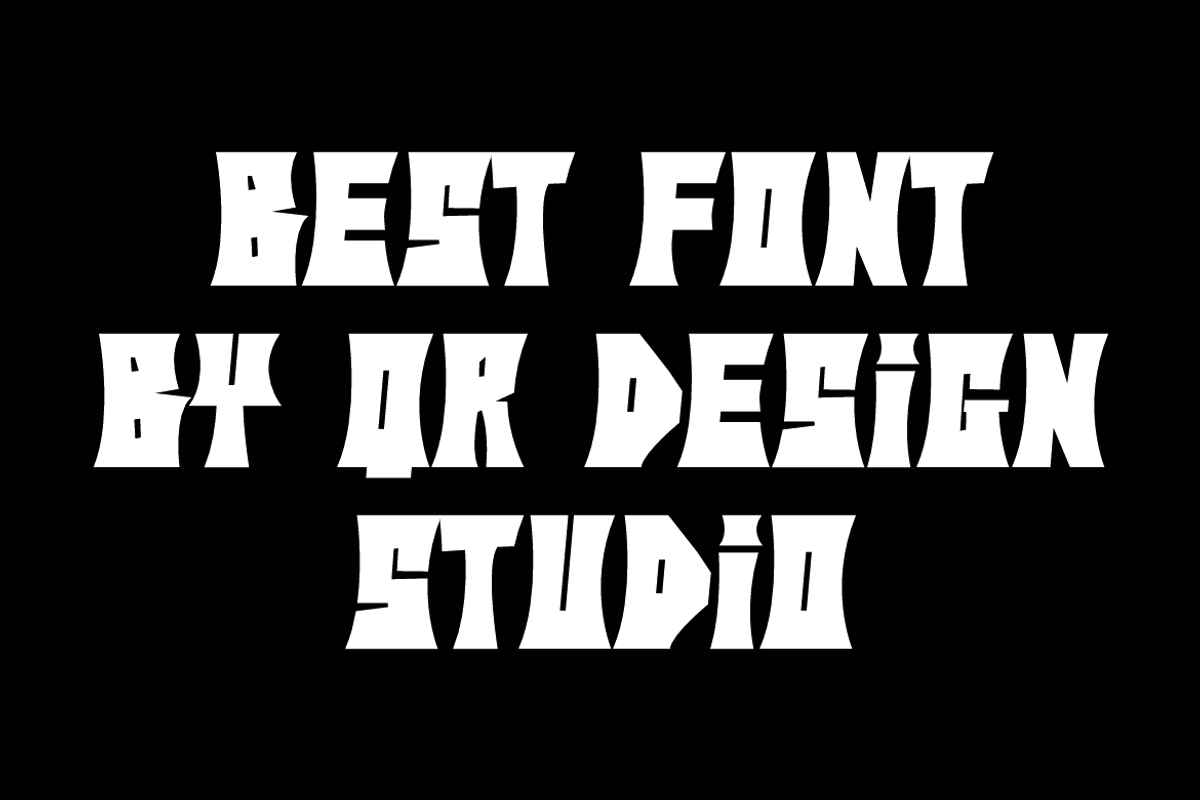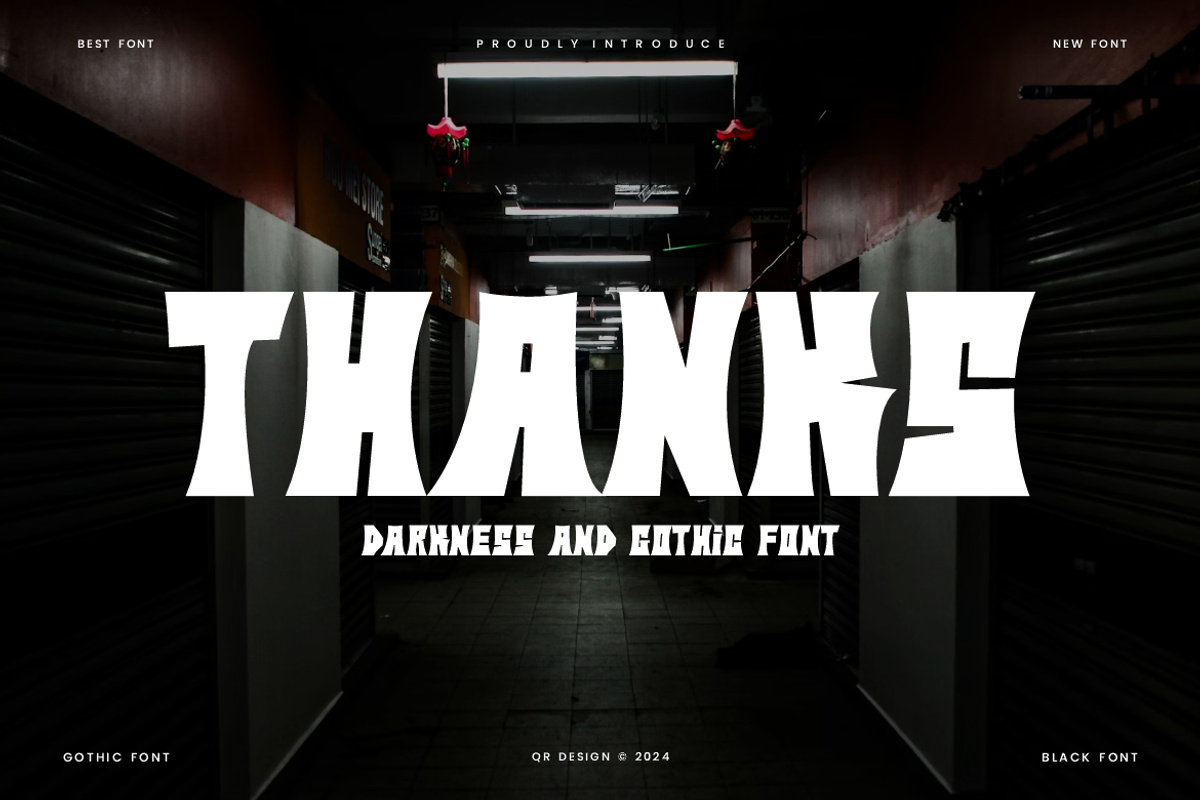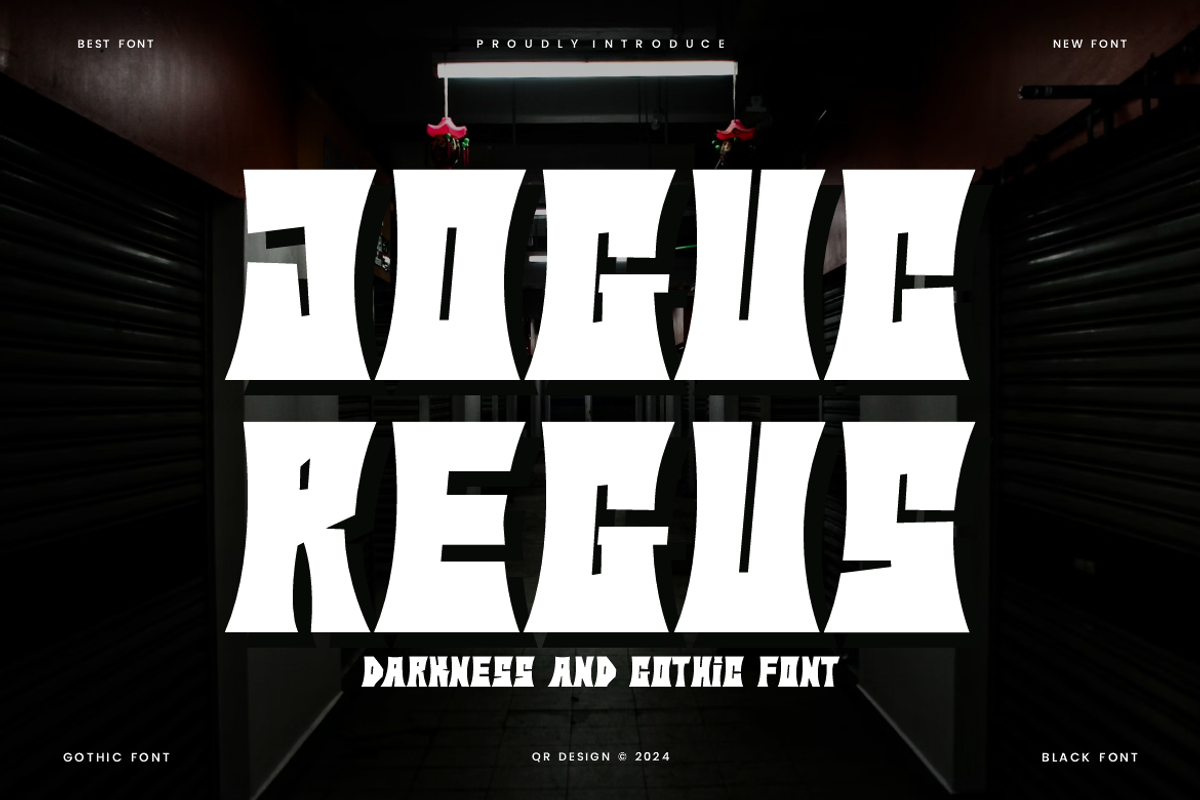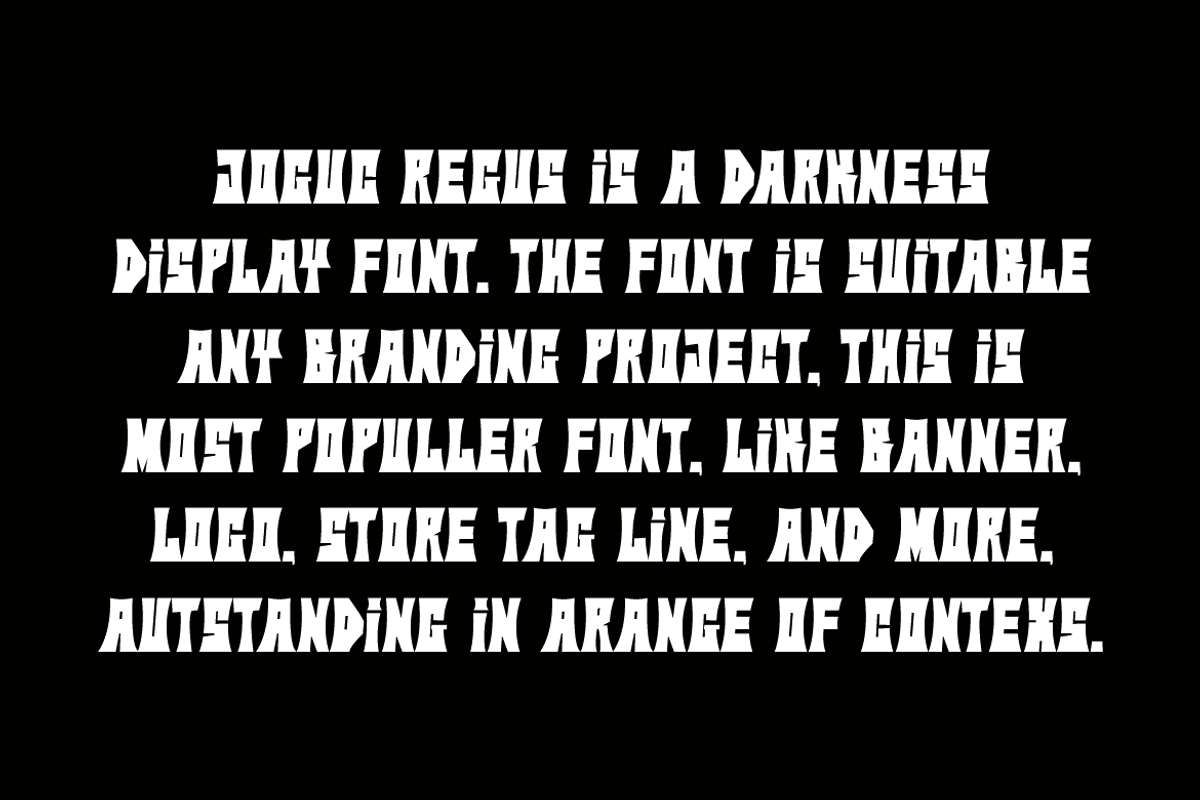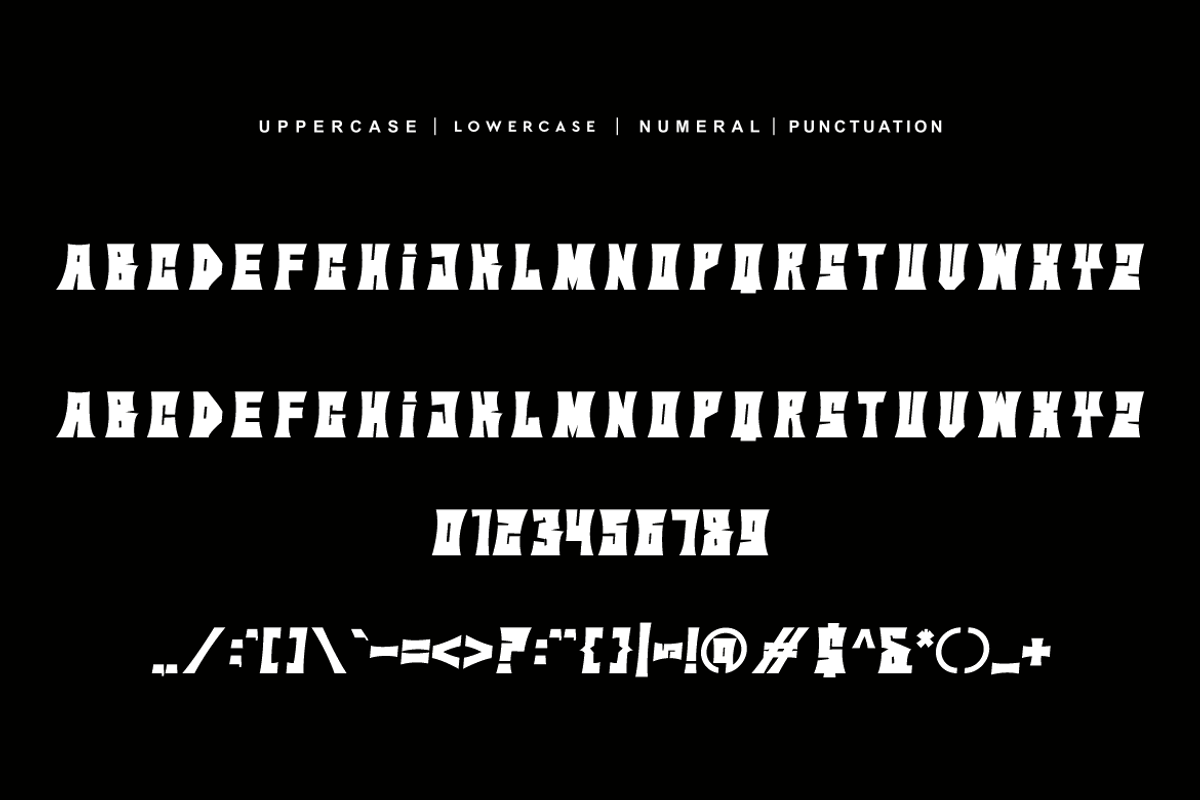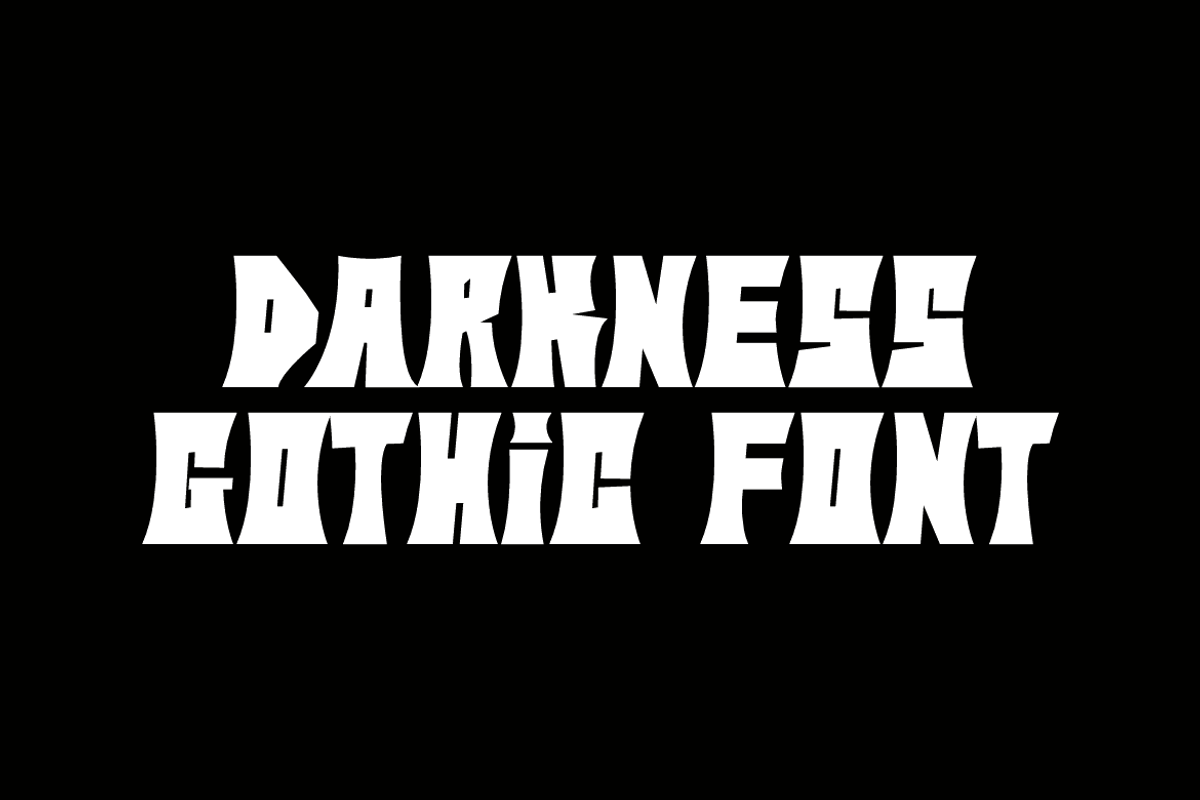
Joguc Regus - Darkness Font
Joguc Regus Font is a blackletter and authentic display font. The font is suitable for any branding project like poster, logo, sport, and many more. Outstanding in a wide range of contexts.